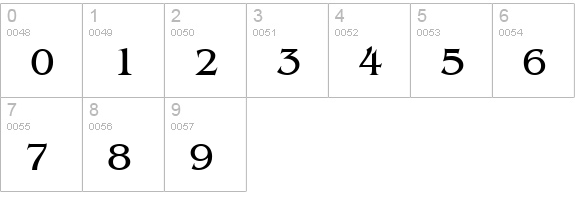
AG_Benguiat Font Details
Introducing AG_Benguiat font, a stunning and versatile typeface that exudes elegance and sophistication. With its distinctive serifs and graceful curves, AG_Benguiat embodies a timeless aesthetic that is perfect for a wide range of design projects. Whether you are creating elegant invitations, eye-catching logos, or stylish branding materials, this font is sure to make a lasting impression. What sets AG_Benguiat apart is its seamless blend of classic charm and modern flair. The balance of traditional elements with contemporary design touches gives this font a unique and captivating appeal that will elevate any project it is used in. And the best part? AG_Benguiat is available for free download at FontsMarket.com. Now you can enjoy the beauty and versatility of this stunning font without any cost. Don't miss out on this opportunity to enhance your designs with AG_Benguiat's timeless elegance and sophistication. Download it today and let your creativity soar!